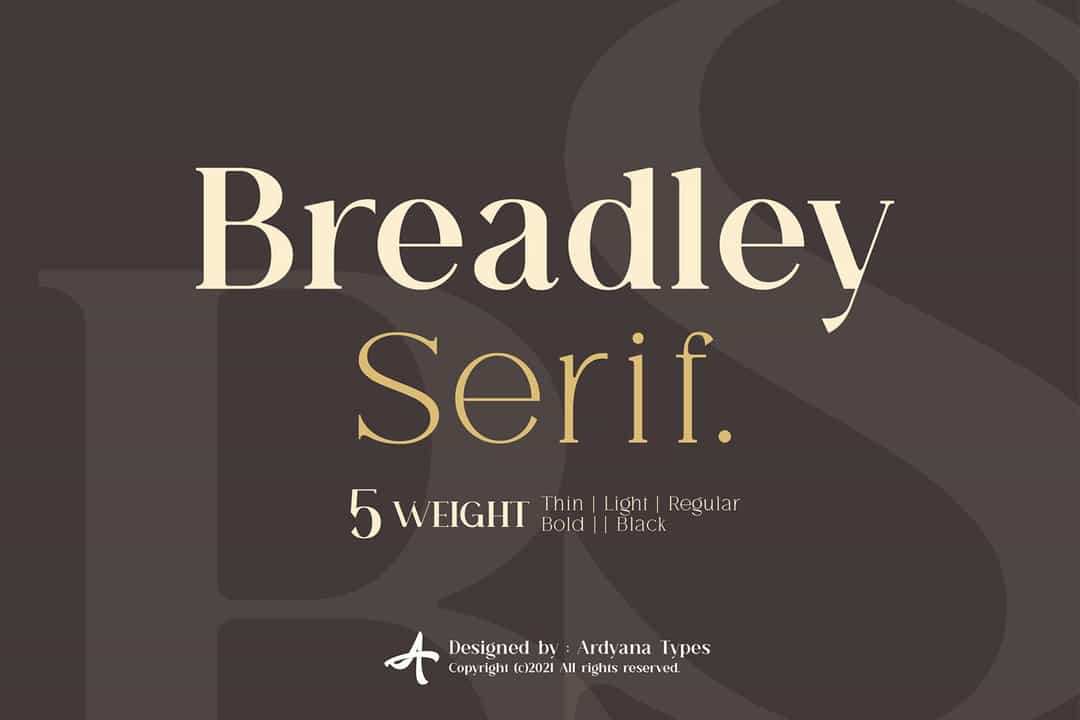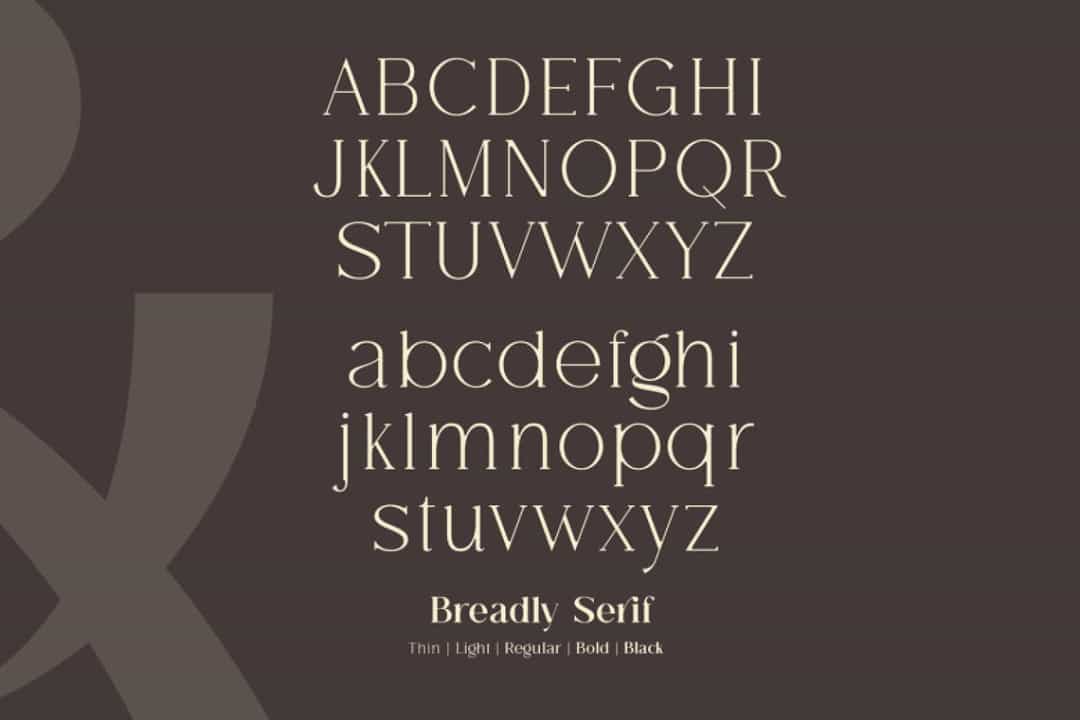
Breadley Serif Font is an evolution of Breadley Sans, featuring serif style designs on certain strokes for added drama and elegance. Still stunning and stunningly elegant, Breadley Serif Font can stand alone as either a heading or brand logo for use by businesses and organizations.